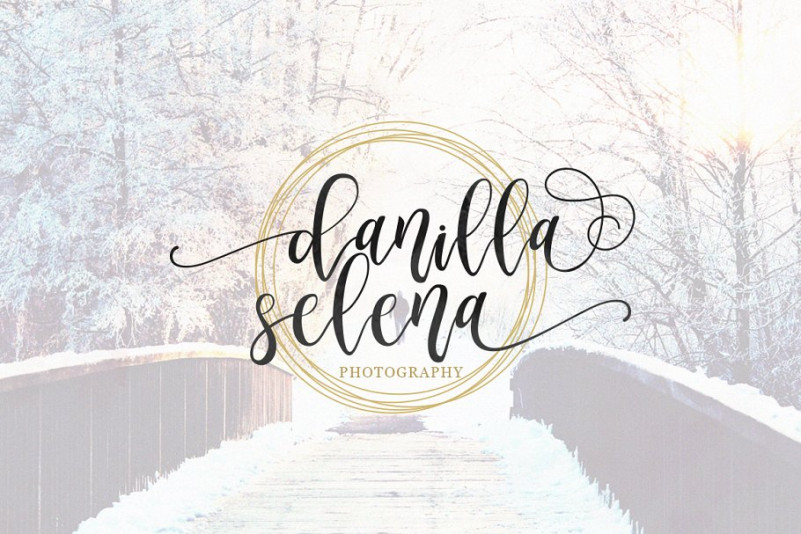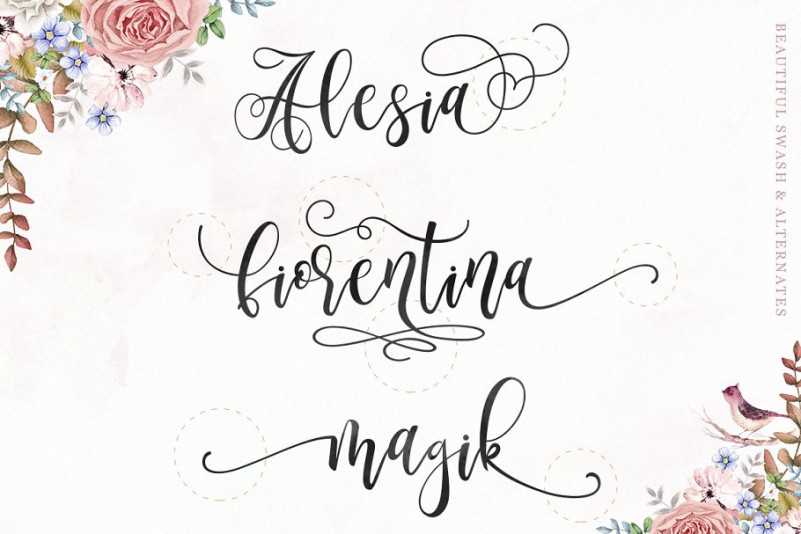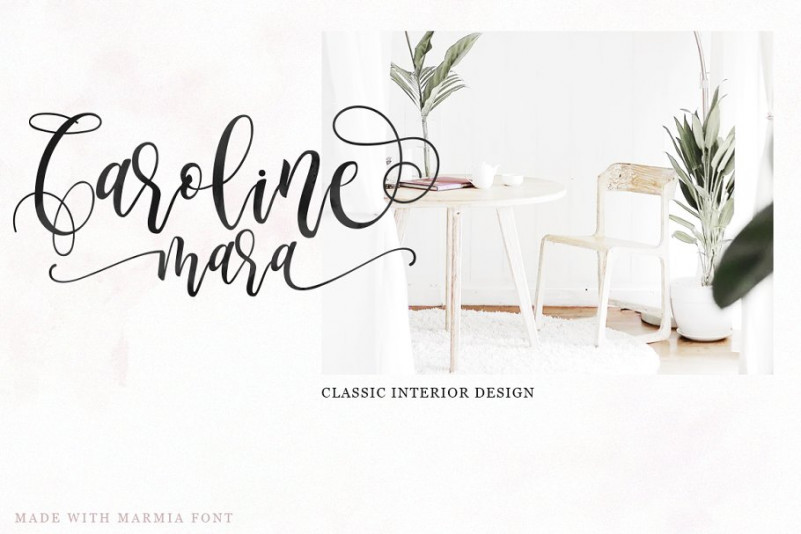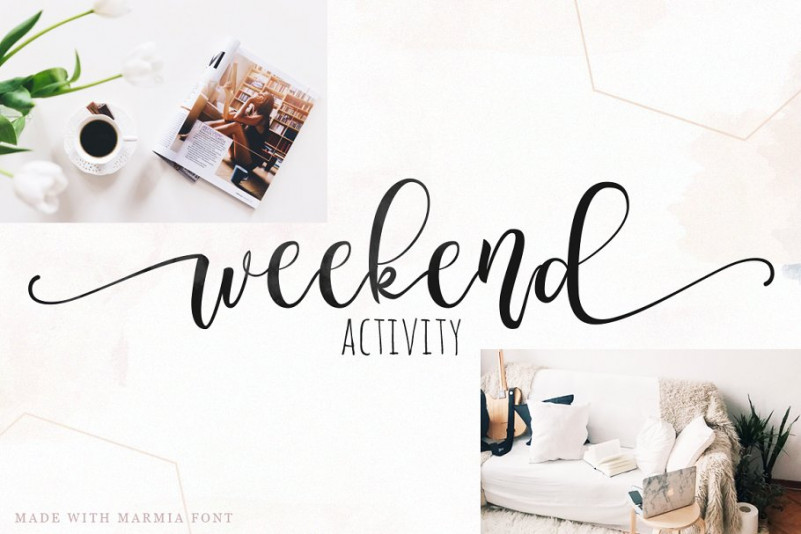
Marmia Calligraphy Font
Hi Font Lovers! It was great, it was my initial feeling, you try and share the idea. Introducing Marmia, font created by Kotak Kuning Studio. An elegant calligraphy font. Perfect for making elegant stylish statements – or adding a touch of class to your designs. This script has a multitude of natural looking ligatures and alternate characters in its OpenType features – making the font look as close to natural handwriting as possible.
Marmia is perfect for many different projects such as logos & branding, invitation, stationery, wedding designs, social media posts, advertisements, product packaging, product designs, label, photography, watermark, special events or anything.